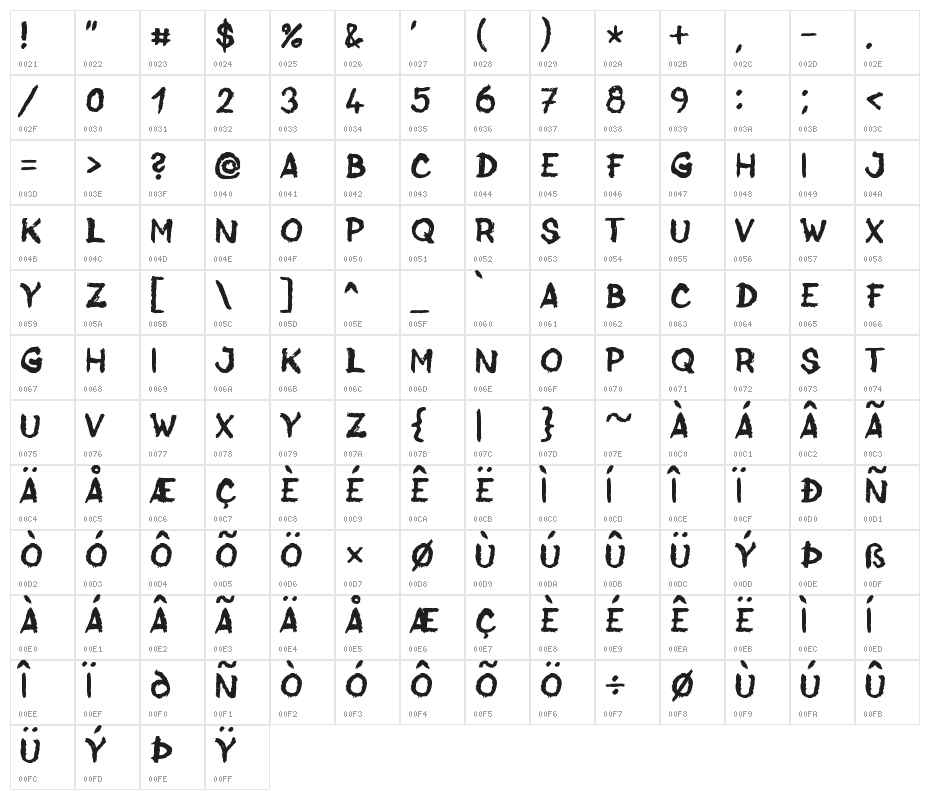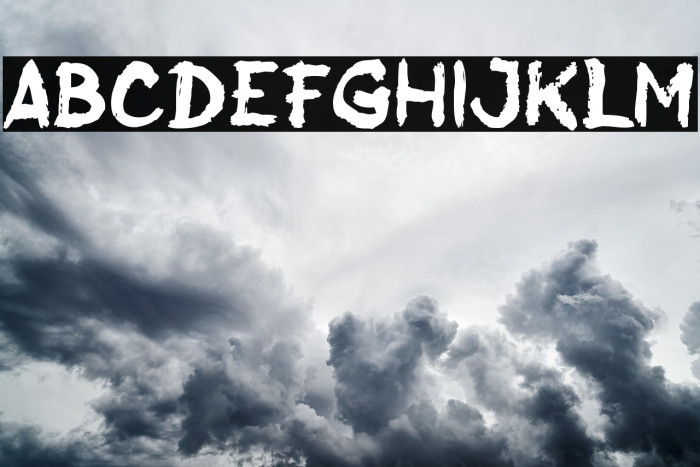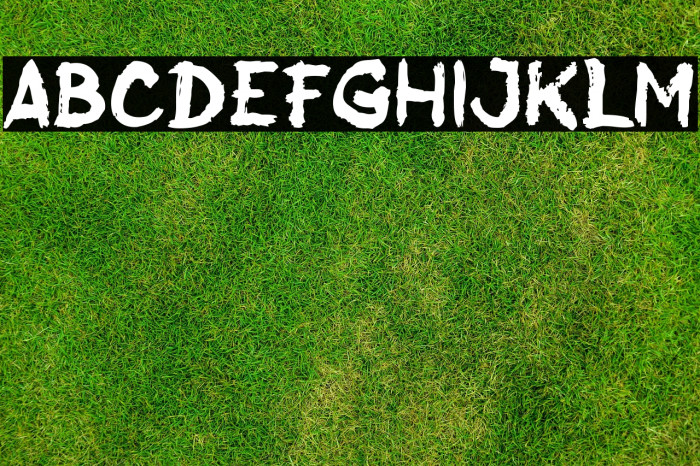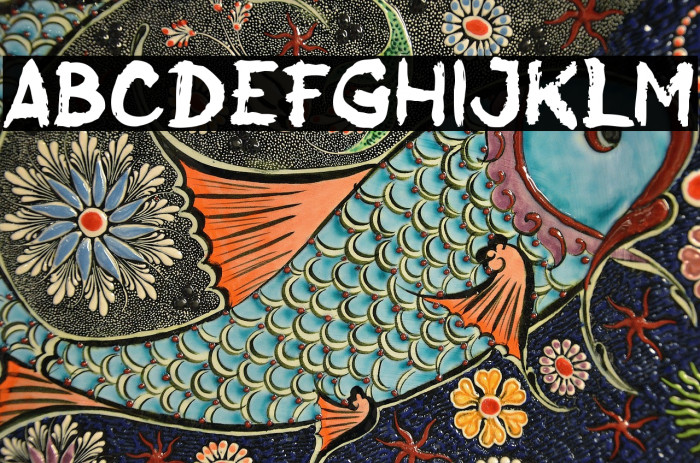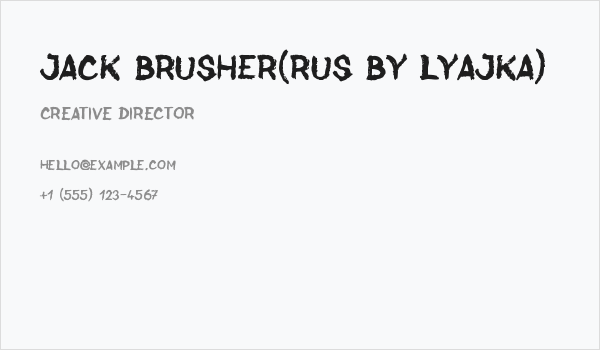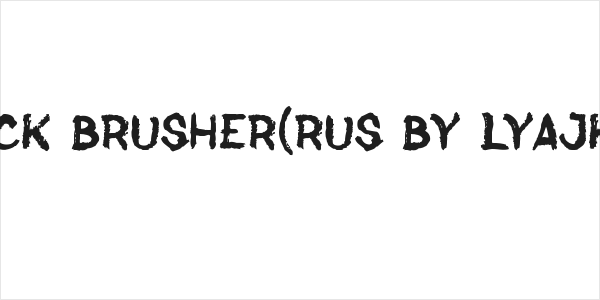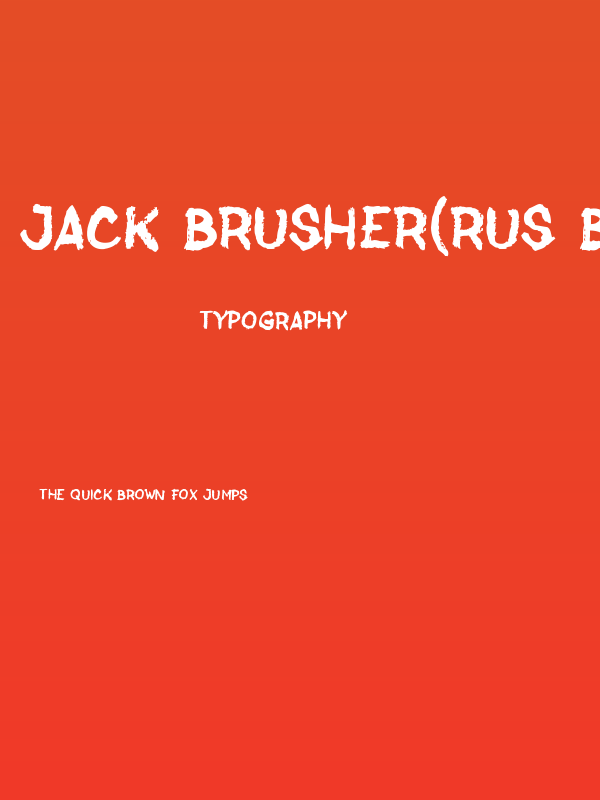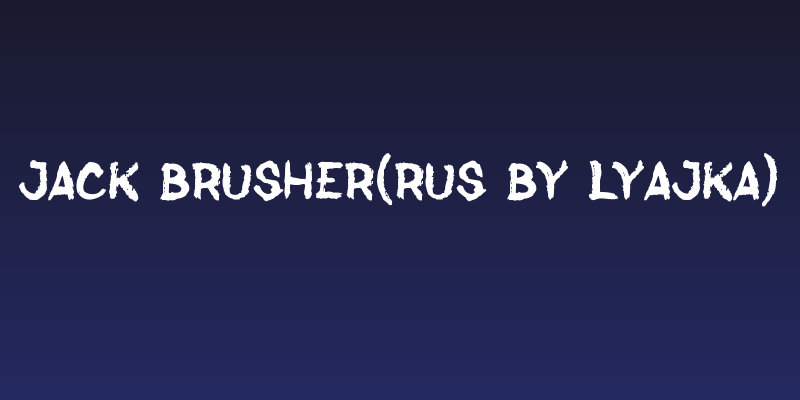
Jack Brusher(RUS BY LYAJKA) Font
Jack Brusher(RUS BY LYAJKA) Description
This font features a bold, textured brush style that gives it a dynamic and energetic appearance. The characters are crafted with a rough, hand-painted look, adding a sense of movement and spontaneity. The uppercase and lowercase letters maintain a consistent style, with slightly irregular edges that enhance the organic feel. The numerals and special characters follow the same aesthetic, ensuring a cohesive look across all text. This font is ideal for projects that require a bold statement or a creative touch, such as posters, branding, or artistic designs.